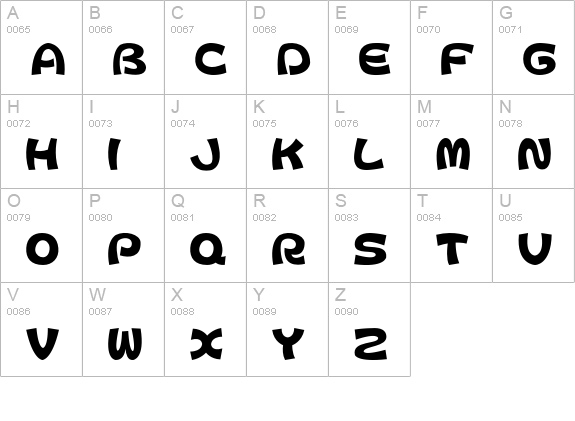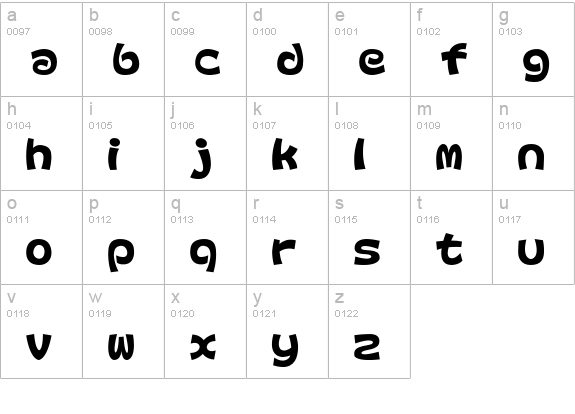
Colopocle-AL Font Details
Introducing Colopocle-AL, a stunning and versatile font that exudes elegance and sophistication. With its unique blend of modern and classic design elements, Colopocle-AL is sure to make your projects stand out. This font features a sleek and stylish appearance, making it perfect for a wide range of uses, from branding to packaging to web design. The best part? Colopocle-AL is completely free to download at FontsMarket.com, allowing you to access this beautiful font without breaking the bank. Whether you're a graphic designer, a business owner, or a creative enthusiast, Colopocle-AL is a must-have addition to your font collection. With its clean lines, smooth curves, and timeless appeal, Colopocle-AL is the perfect choice for creating professional and eye-catching designs. Download it today and elevate your projects with this exceptional font that is sure to impress.